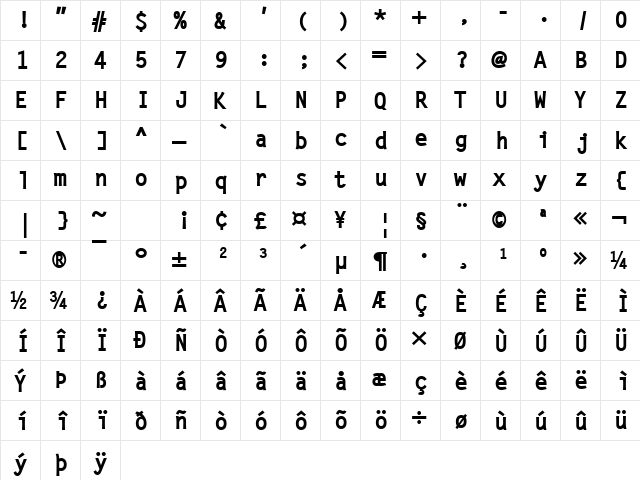
LetterGotLBol Regular
Design Context for LetterGotLBol Typeface
LetterGotLBol is a composed and adaptable typeface that performs quietly and consistently across a wide range of design contexts.